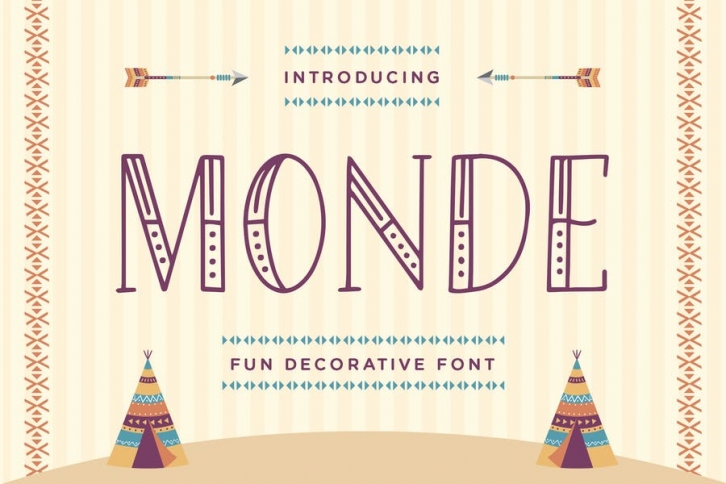
Monde is a decorative display font.
It will turn any design project into a stand out.
Monde font is really great for a restaurant menu, business branding, quotes, headings, birthday invitations, posters, and many others.